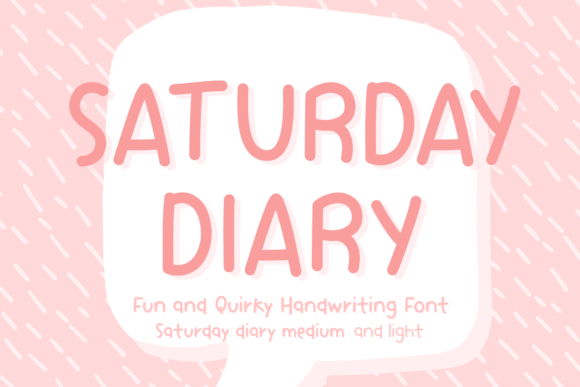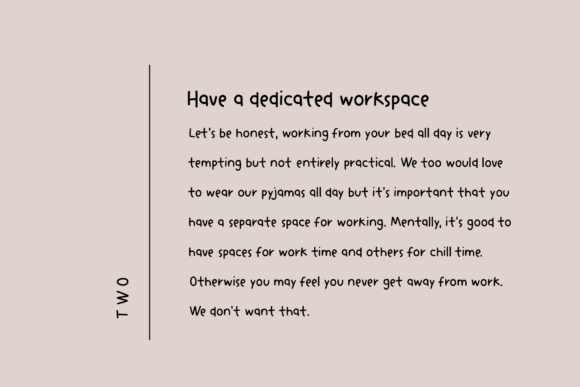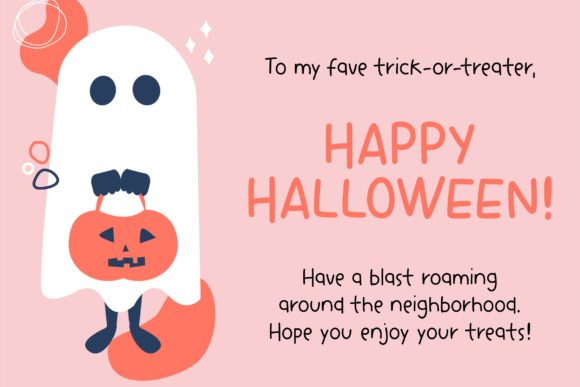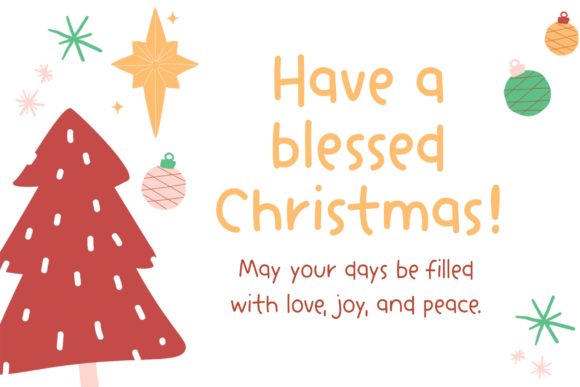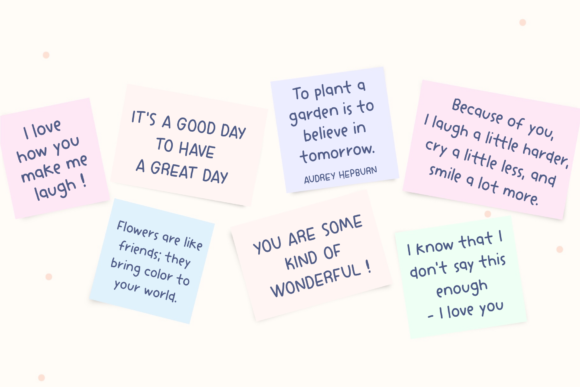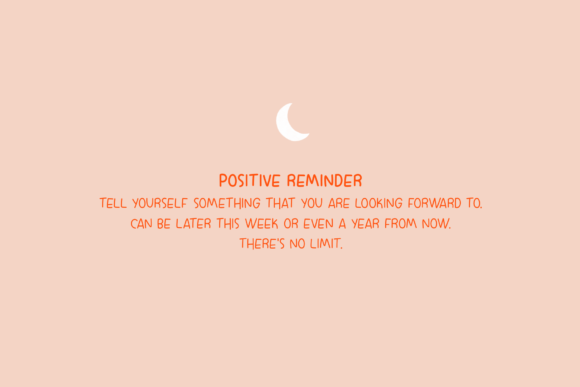
Saturday Diary Font
About Saturday Diary Font
Saturday Diary is a cute and simple lettered handwritten font that can be used for all chalkboard quotes or teaching material! Its authentic look will add a personal and realistic feel to your designs.